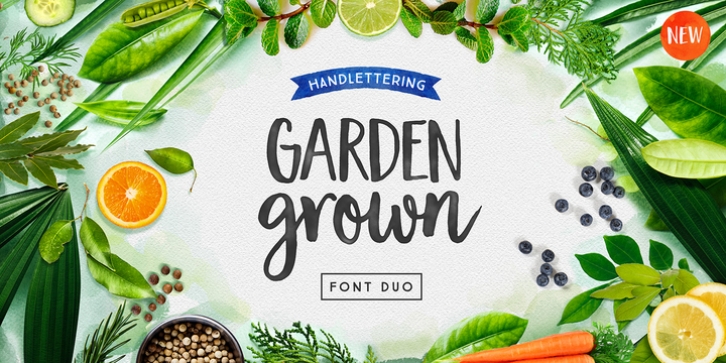
Garden Grown was designed by Cindy Kinash and published by Cultivated Mind. Garden Grown contains 2 styles and family package options.
Garden Grown is a lovely typeface duo by Cindy Kinash. This new font family includes a caps and script. The script comes with alternates and ligatures. Try Garden Grown for book covers, stationery, marketing, magazines and film.
Garden Grown·